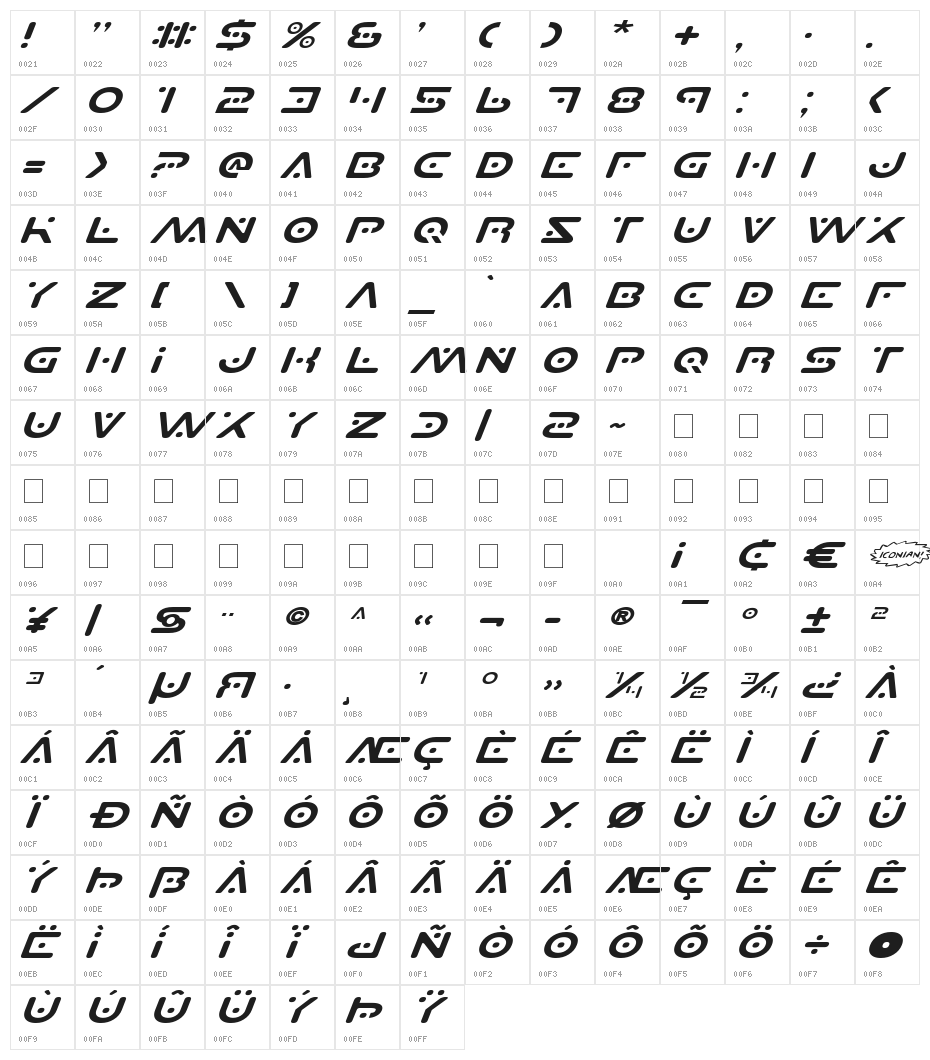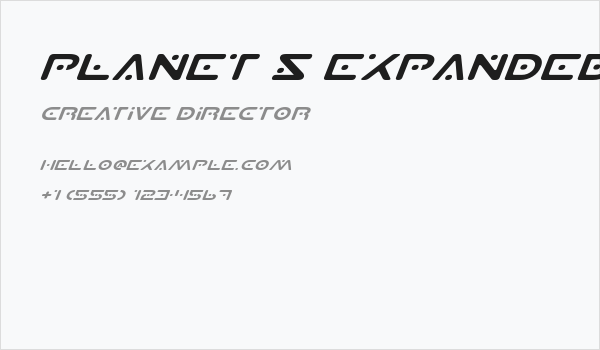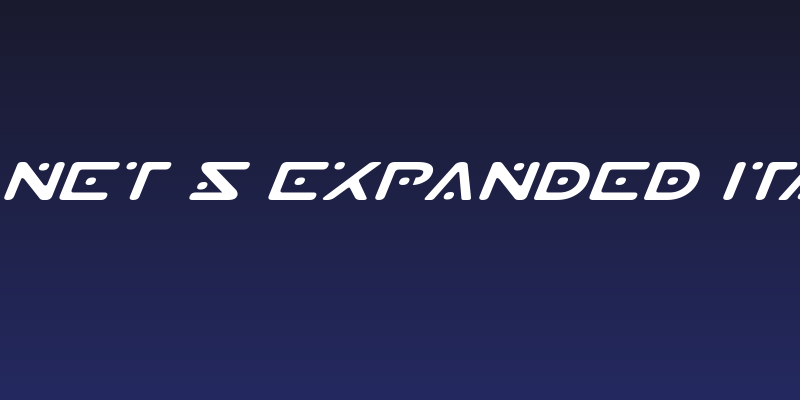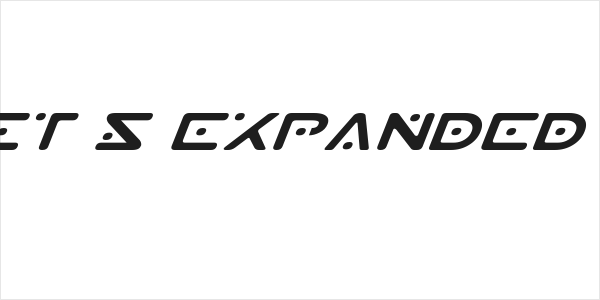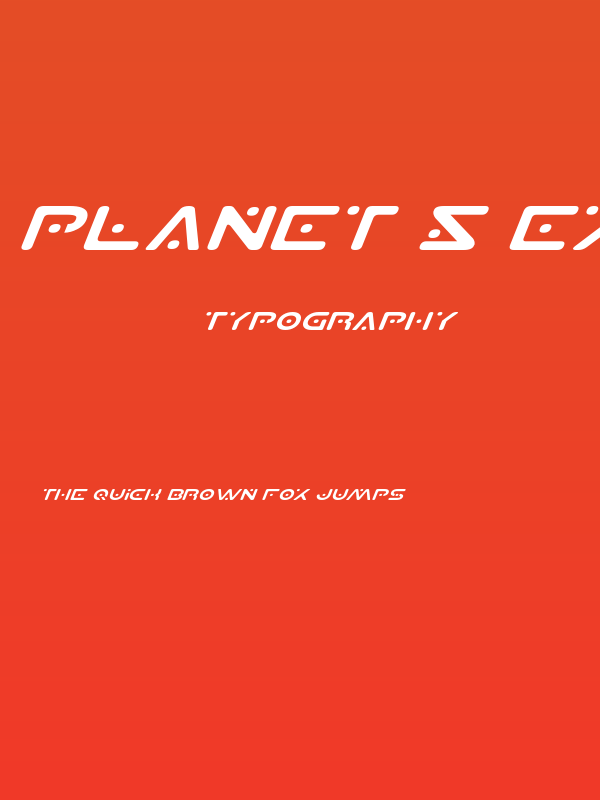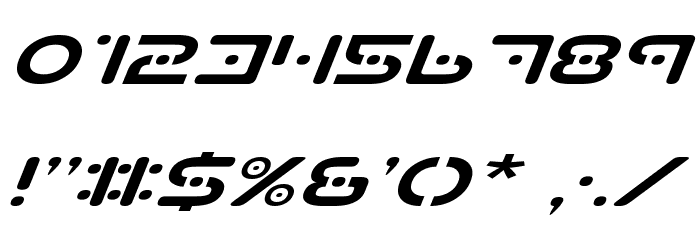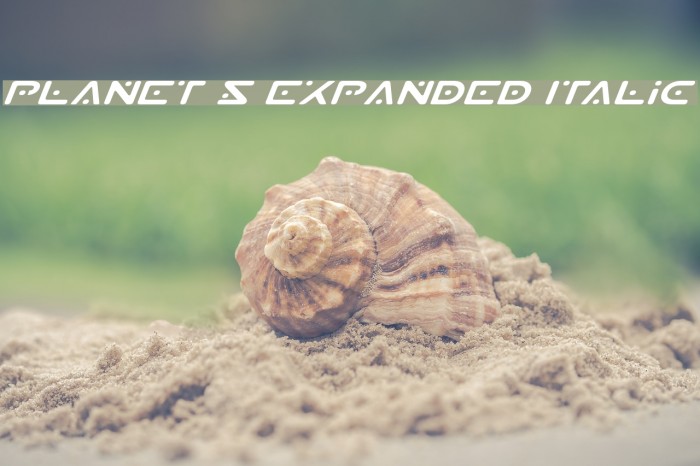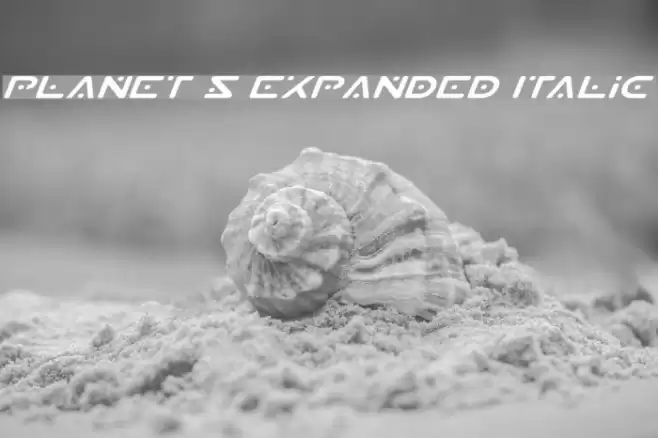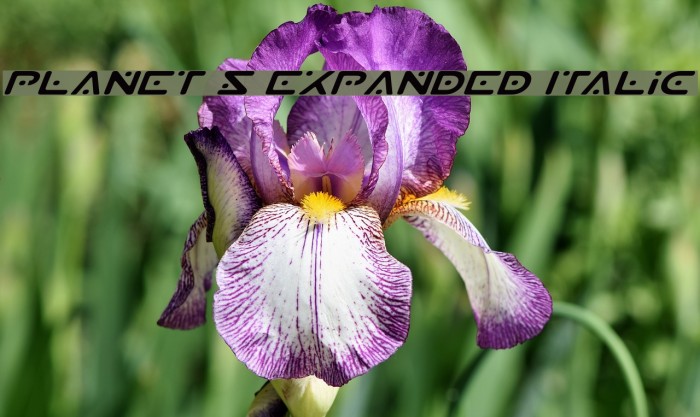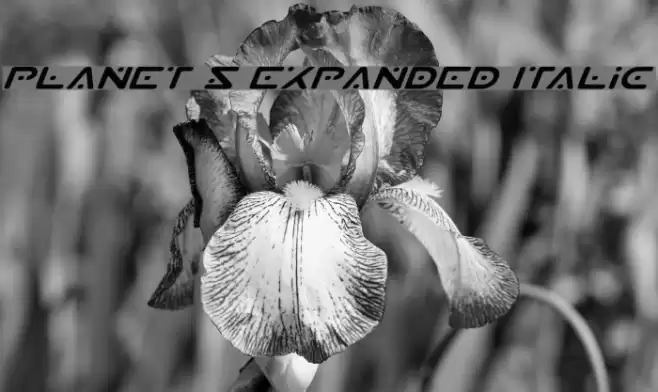
Planet S Expanded Italic Font
Planet S Expanded Italic Description
This futuristic and dynamic typeface features a sleek, italicized design with expanded letterforms. The characters are crafted with a modern aesthetic, incorporating geometric shapes and smooth curves. The font has a distinct, tech-inspired appearance, making it ideal for projects that require a contemporary and innovative look. The spacing between characters is balanced, providing a clear and readable text flow. The inclusion of unique elements, such as dots and lines within the characters, adds to its distinctive style.
| Use Case | Logos, Headlines, Posters |
| Proposed Projects | Ideal for tech branding, sci-fi posters, video game titles, and modern advertising. |